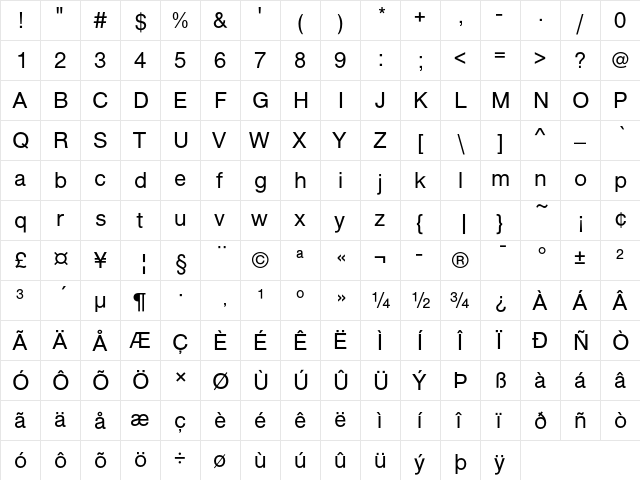
Nimbus Sans No5 Regular
Design Context for Nimbus Sans No5 Typeface
Nimbus Sans No5 offers clean, dependable letterforms without strong stylistic allegiance, making it a practical choice for designers who need flexibility.
Pro Tip: Pair Nimbus Sans No5 with a font of contrasting weight or personality to build a more expressive typographic hierarchy.